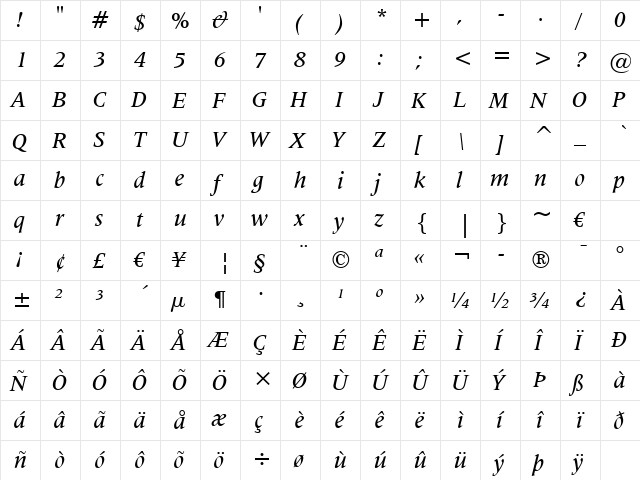
Latin725 Md BT Medium Italic
Design Context for Latin725 Md BT Typeface
Latin725 Md BT offers clean, dependable letterforms without strong stylistic allegiance, making it a practical choice for designers who need flexibility. The slanted form adds forward momentum and visual energy.
Pro Tip: Try Latin725 Md BT for annotation and caption copy alongside an upright companion — the contrast in angle creates a dynamic but ordered typographic system.